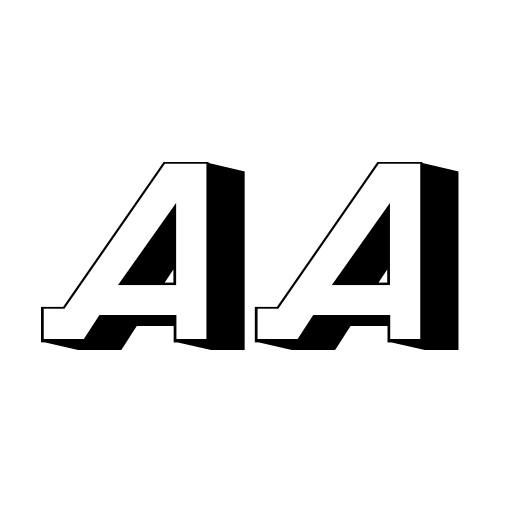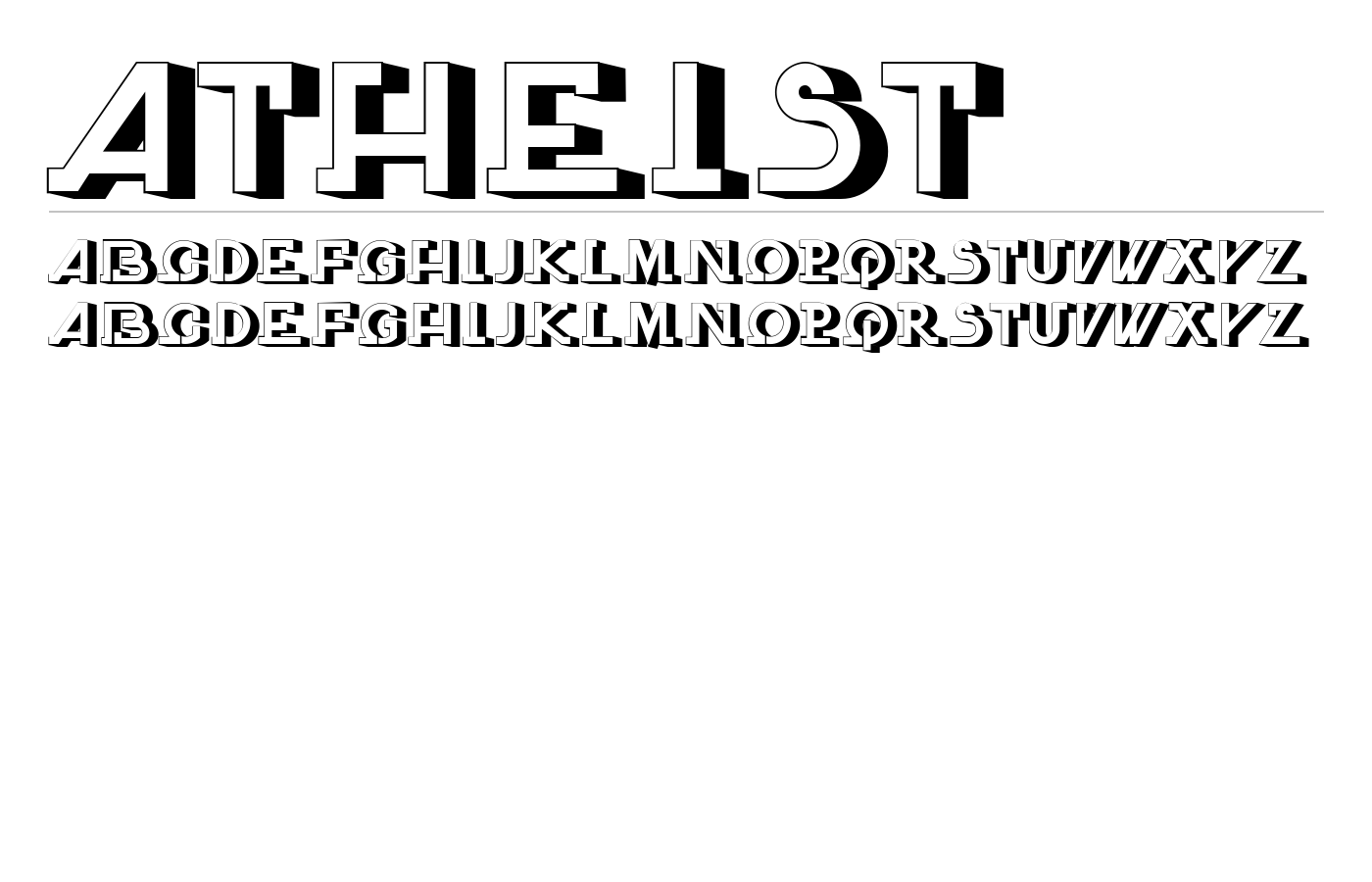
Atheist Font is a bold, geometric sans serif with a dynamic 3D shadow effect that gives it a strong, energetic presence. Its uppercase letters feature sharp angles and solid strokes, making it ideal for eye-catching headlines, logos, and posters where a modern, playful, and impactful style is needed. This font works well in designs seeking a retro yet futuristic vibe with clear, confident character.
Atheist Font
About Atheist Font